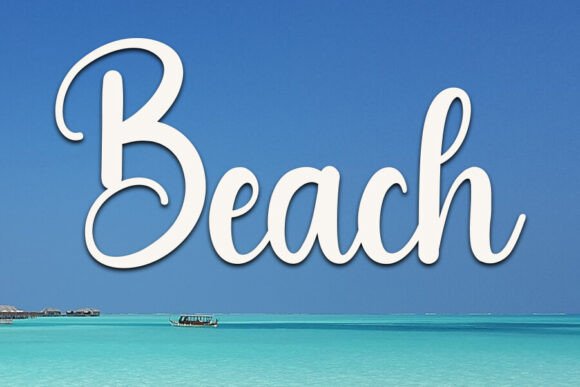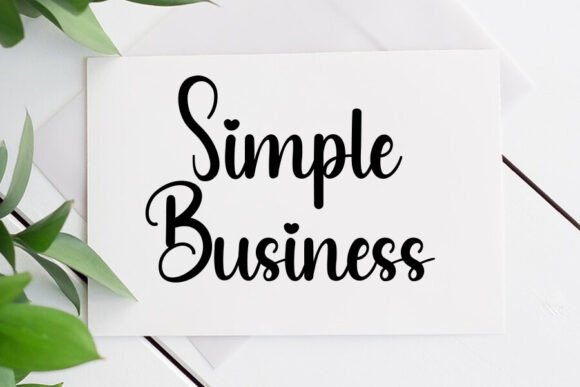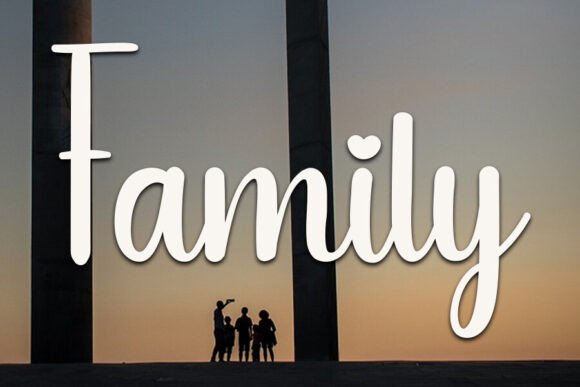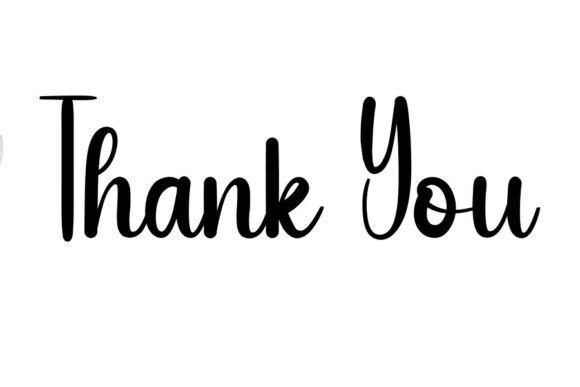
The Power of Beside Font: Elevating Your Designs with a Simple Handwritten Touch
An Honest Review of Beside Font
So, what makes Beside Font so special? Let’s dive into the good stuff and a few quirks I’ve discovered.
- ✨ Simple and elegant handwritten style that’s easy to read
- ✅ Versatile and suitable for a wide range of projects, from greeting cards to headlines
- ✅ Great for adding a personal touch to your designs
- ✅ Works well with both digital and print materials
While Beside Font is an excellent choice, there are a few things to keep in mind:
- ⚠️ Limited character set compared to some other fonts
- 🤔 May not be the best choice for very small text sizes or body copy
The Story Behind Beside Font
Beside Font was designed with the intention of creating a simple, yet elegant handwritten font that could be used in a variety of contexts. The designer wanted to create a font that felt approachable and personal, perfect for adding a touch of warmth to any design project. While I couldn’t find any information on the actual designer, it’s clear that Beside Font has been crafted with care and attention to detail.
Q: Is Beside Font suitable for body copy?
A: While Beside Font is a beautiful font, it’s best suited for headlines, titles, and short paragraphs. For longer body copy, you may want to consider a more traditional serif or sans-serif font.
Q: Does Beside Font support OpenType features?
A: Yes, Beside Font supports some OpenType features, such as ligatures and stylistic alternates. Experiment with these features to add some personality to your text.